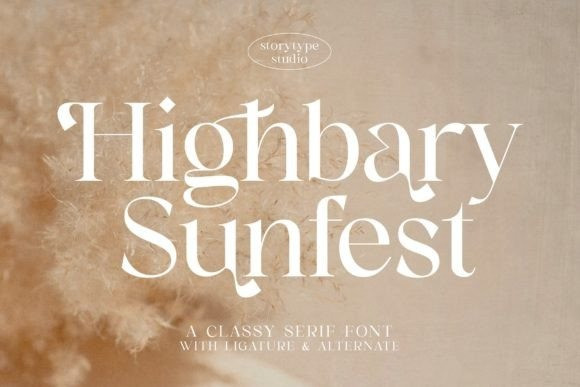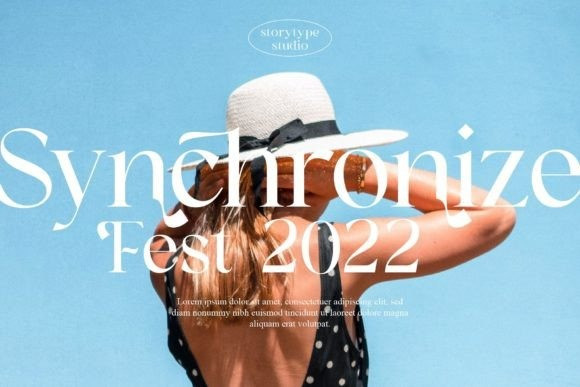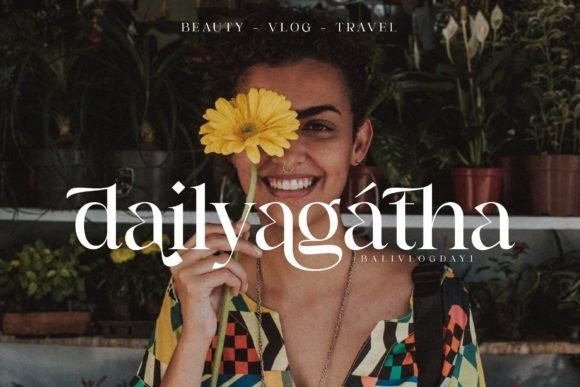
Highbary Sunfest Font
Highbary Sunfest is a classic serif font with a unique style and modern look. It is perfect for elegant and luxury logos, book or movie title design, fashion brands, magazines, clothes, lettering, quotes, and much more. Add it to any of your creative projects, and you will be amazed by the results.